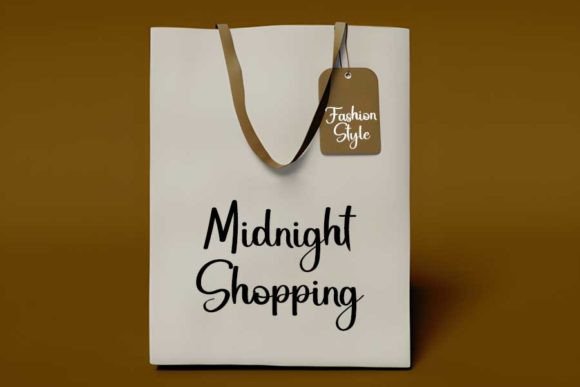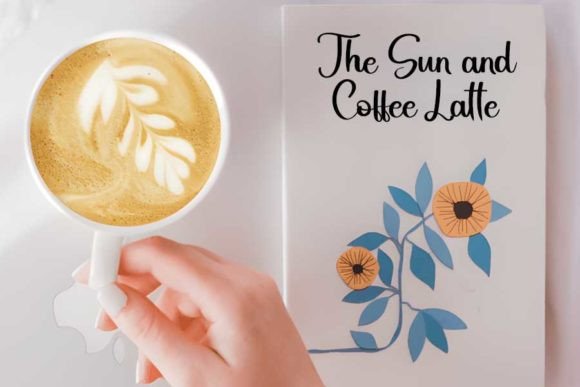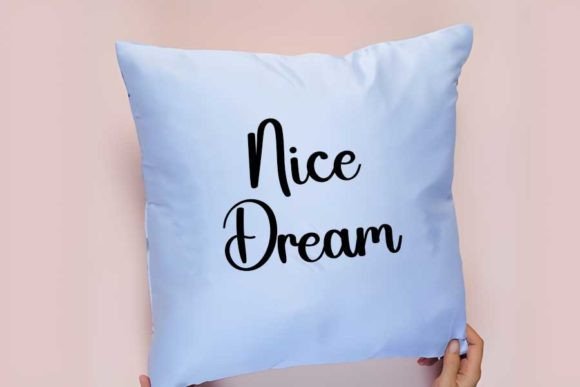
The Elusive Perfect Font: My Encounter with Bookmarks
Ah, the quest for the perfect font. We’ve all been there – working on a design project, pouring our heart and soul into it, and then… font paralysis sets in. I recall a particularly frustrating experience with a client who wanted a elegant, yet modern font for their branding project. After hours of scrolling through font libraries, I stumbled upon Bookmarks – a trendy handwritten font that caught my eye. In this article, I’ll share my experience with Bookmarks, its features, and how to make the most of it in your design projects.
A First Impression: What I Love About Bookmarks
Bookmarks is a beautiful, handwritten font with a contemporary atmosphere and impeccable form. Here are a few things that I love about it:
- ✨ Elegant and classy: Bookmarks adds a touch of sophistication to any design project.
- ✅ Highly legible: Despite its elegant nature, Bookmarks is surprisingly easy to read, even at smaller font sizes.
- 💫 Versatile: This font works well for a variety of design projects, from branding and logos to invitations and stationery.
The Not-So-Perfect: Small Quirks and Limitations
While Bookmarks is an excellent font, it’s not without its quirks. Here are a few things to keep in mind:
- ⚠️ Limited use in body text: While Bookmarks is legible, it’s still a script font and may not be the best choice for lengthy body text.
- 🤔 Some characters may require manual kerning: As with any font, some characters may require manual kerning to achieve optimal results.
The Story Behind Bookmarks: Designer Inspiration
Bookmarks was inspired by timeless classic calligraphy. The designer aimed to create a font that would evoke a sense of elegance and sophistication, while still feeling modern and fresh. The result is a beautiful, handwritten font that’s perfect for a variety of design projects.
| Font Name | Bookmarks Font |
| Author | Binoma Design |
| What is Bookmarks font? | Bookmarks is a trendy handwritten font with a contemporary atmosphere and impeccable form. |
| Is Bookmarks suitable for body text? | While Bookmarks is legible, it’s still a script font and may not be the best choice for lengthy body text. |
| Does Bookmarks support OpenType features? | Yes, Bookmarks supports OpenType features, including glyphs and stylistic alternates. |